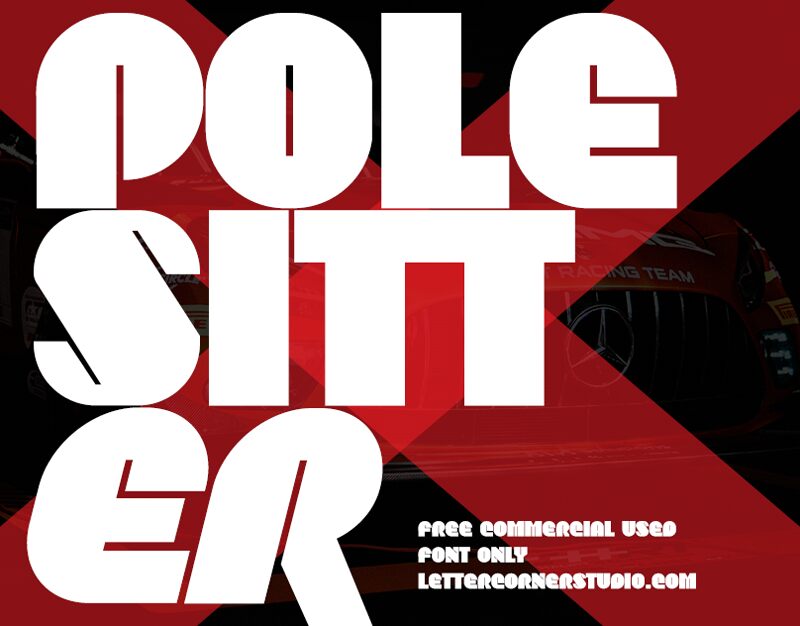
Polesitter Italic
Polesitter Italic, crafted by the imaginative Mocha Frappuccino, is a display font that embodies a bold and groovy aesthetic. With its thick strokes and lively slant, it commands attention and infuses designs with an energetic pulse.
This bold font's expressive curves and dynamic presence make it ideal for posters, album covers, and branding projects that seek to leave a lasting impression. Polesitter Italic’s striking appearance ensures your message stands out with style and vitality. Embrace the lively spirit of Polesitter Italic to make your visual communications vibrant and unforgettable.